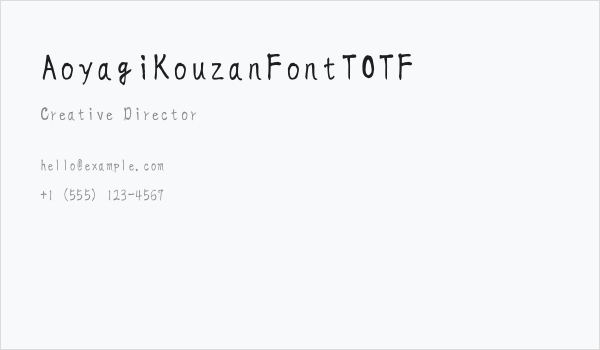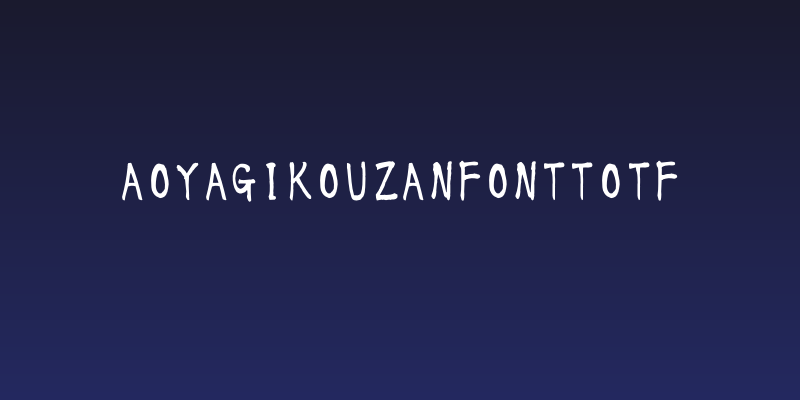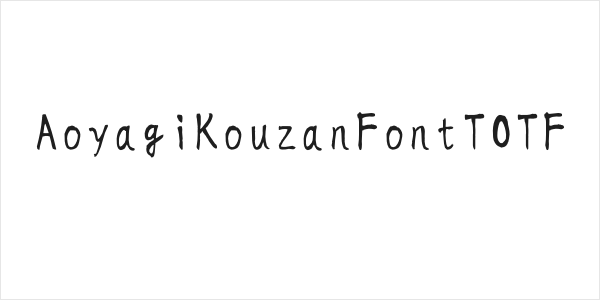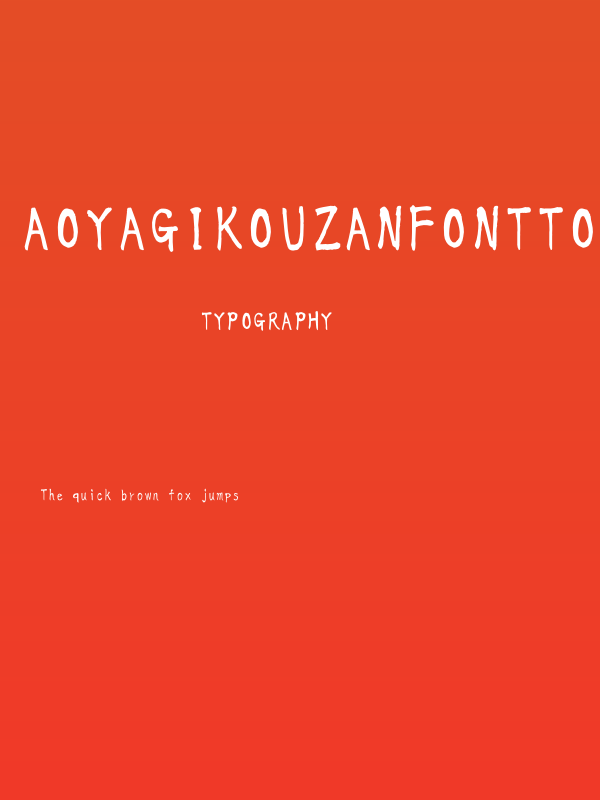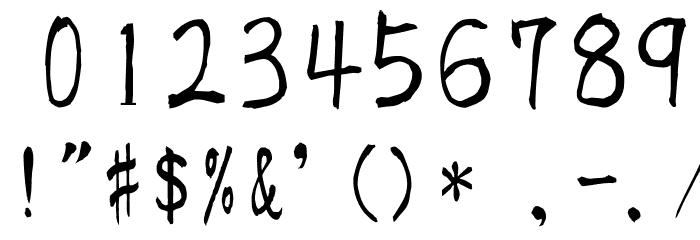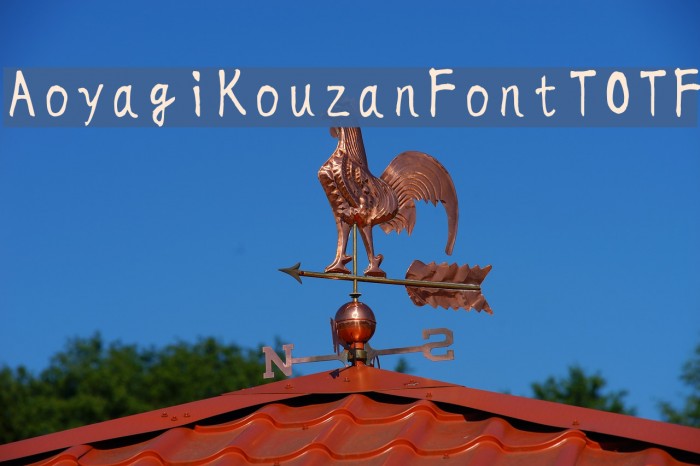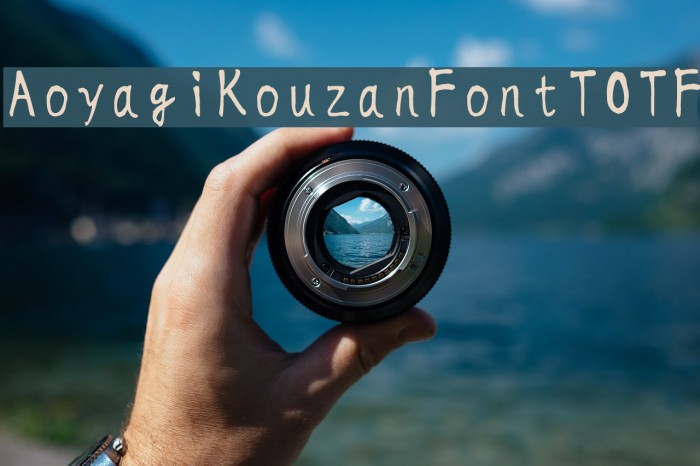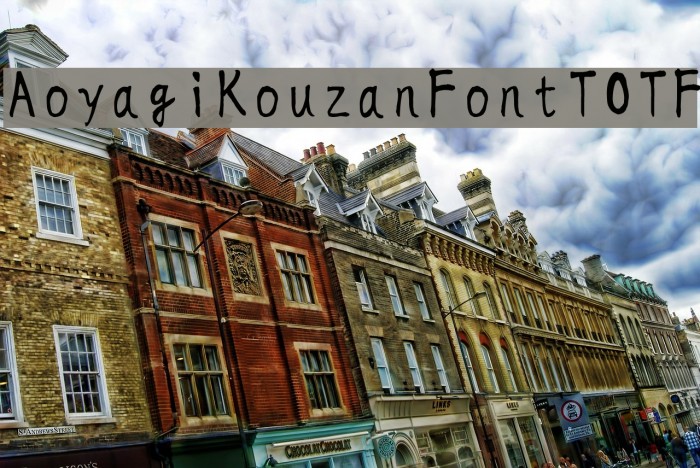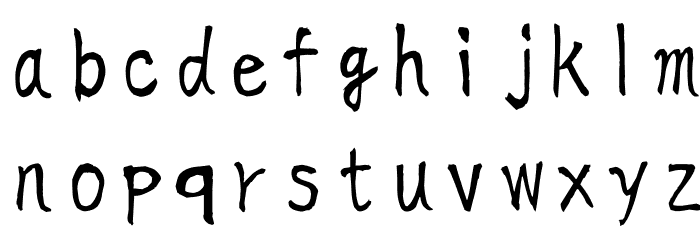
AoyagiKouzanFontTOTF Font
AoyagiKouzanFontTOTF Description
This font features a distinctive, hand-drawn style that exudes a playful and artistic vibe. The characters are unevenly shaped, giving them a whimsical and organic appearance. The strokes are varied in thickness, adding to the font's dynamic and lively feel. Each letter has a unique flair, with some characters exhibiting slight slants or curves, enhancing the font's informal and creative nature. The numerals and special characters maintain this quirky style, ensuring a cohesive look across all elements. This font is perfect for projects that require a personal touch or an artistic flair.
| Use Case | Headlines, Logos, Artistic projects |
| Proposed Projects | Ideal for children's books, creative posters, artistic branding, and informal invitations. |